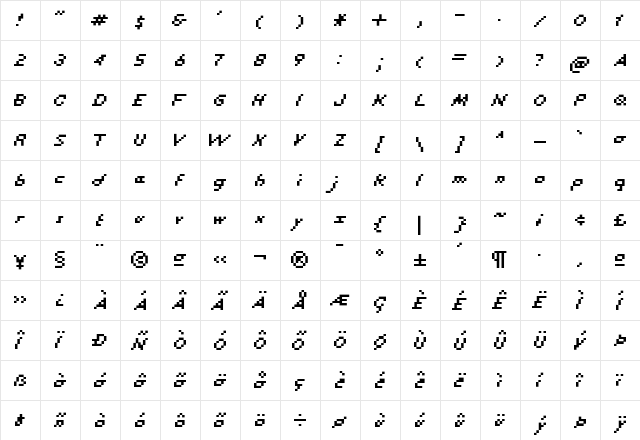
KareFiveDots Italic
Design Context for KareFiveDots Typeface
KareFiveDots is rooted in pixel-grid construction, making it a natural fit for game UI, retro computing aesthetics, and digital nostalgia projects. The dynamic lean of this cut emphasises speed and emphasis in any layout.
A natural choice for retro game titles, chiptune music branding, 8-bit UI, and digital nostalgia projects.